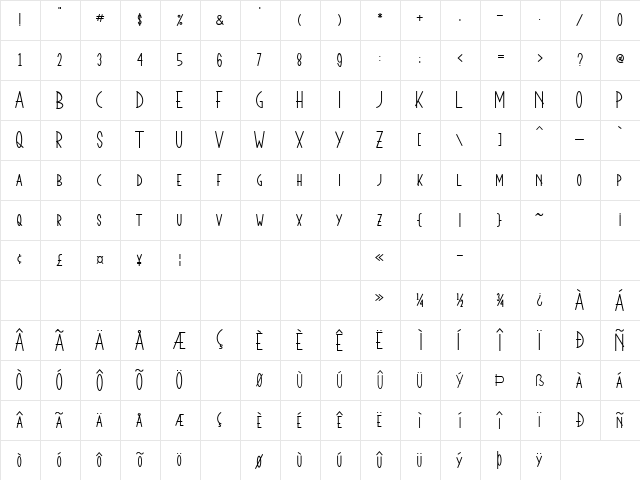
THE BAZOOKA (Demo) Regular
| Designer | Faris Font Creative 2018 |
Design Context for THE BAZOOKA (Demo) Typeface
THE BAZOOKA (Demo) offers clean, dependable letterforms without strong stylistic allegiance, making it a practical choice for designers who need flexibility.